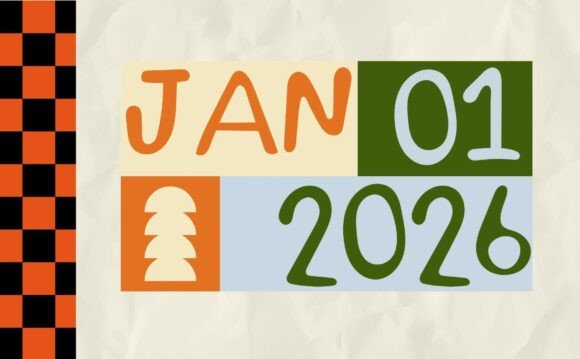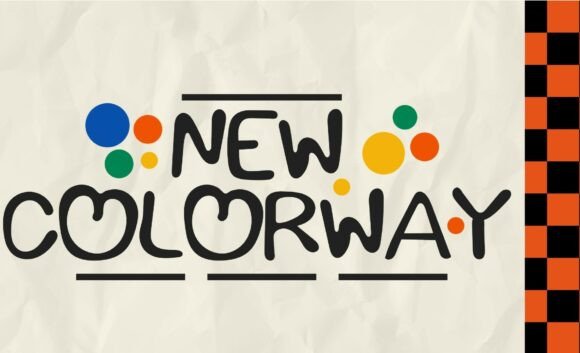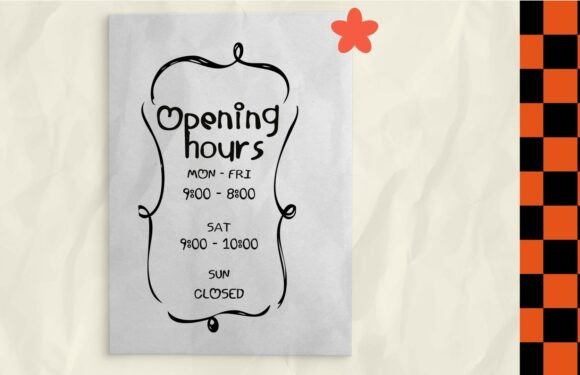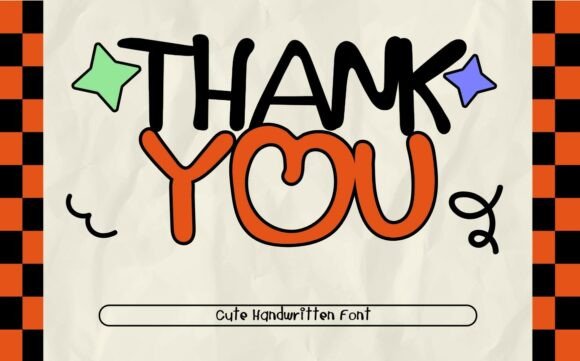
Bring the Magic of the Holidays to Your Designs with Frosty Magic Font
The holiday season is upon us, and with it comes the joy of creating festive designs that sparkle with cheer and warmth. If you’re a designer or crafter looking to add a touch of magic to your projects, look no further than the Frosty Magic Christmas Font. This delightful typeface is specifically designed to bring the spirit of the holidays to your designs, with its playful curves and cozy handwritten style.
A Festive Font for Every Design Need
The Frosty Magic Christmas Font is incredibly versatile, making it perfect for a wide range of design applications. Whether you’re creating Christmas cards, cozy café menus, mugs, t-shirts, party invitations, stickers, or seasonal branding, this font is sure to add a touch of festive flair. Its cheerful and heartwarming style is guaranteed to put a smile on the faces of those who see your designs.
What Makes Frosty Magic So Special?
So, what sets the Frosty Magic Christmas Font apart from other festive fonts on the market? Here are just a few of its standout features:
- Playful curves: The Frosty Magic Font features playful curves that give it a lighthearted and whimsical feel. Perfect for adding a touch of fun and personality to your designs.
- Cozy handwritten style: The font’s handwritten style gives it a warm and cozy feel, perfect for creating designs that feel like a warm hug.
The Frosty Magic Christmas Font is a dream come true for designers and crafters who love to create festive designs. Whether you’re a professional designer or a hobbyist crafter, this font is sure to inspire your creativity and help you create designs that shine. Here are just a few ways you can use the Frosty Magic Font:
- Christmas cards: Create beautiful and festive Christmas cards that will delight your friends and family.
- Café menus: Add a touch of festive cheer to your café’s menu with the Frosty Magic Font.
- Mugs and t-shirts: Create fun and festive designs for mugs and t-shirts that make perfect gifts or personal treats.
- Party invitations: Create eye-catching and festive party invitations that set the tone for a fun and memorable celebration.
- Seasonal branding: Use the Frosty Magic Font to create festive branding for your business or product, perfect for the holiday season.
| Author | JidapaDesign |
The Frosty Magic Christmas Font is a must-have for designers and crafters who want to add a touch of festive magic to their designs. With its playful curves, cozy handwritten style, and ease of use, this font is perfect for a wide range of design applications. Whether you’re creating Christmas cards, café menus, or seasonal branding, the Frosty Magic Font is sure to bring joy and cheer to your designs. So why wait? Download the Frosty Magic Font today and start creating your own festive designs! 🎄✨